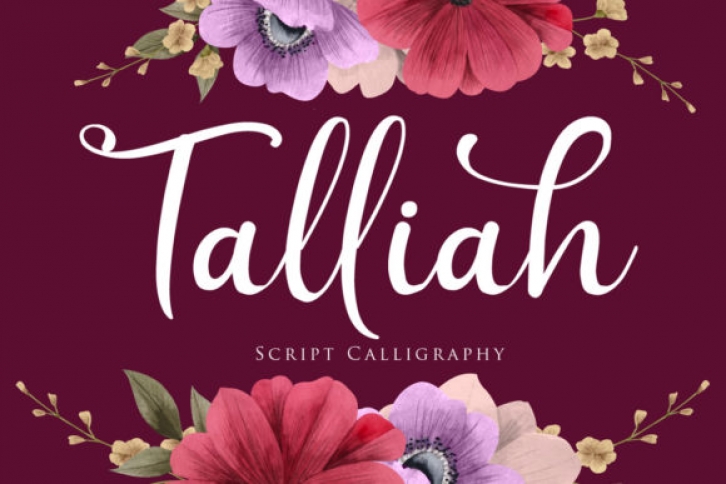
Talliah is a ravishing and delicate script font that exudes elegance and class. This font was particularly crafted for those who need a beautiful and refreshing look to their designs. Talliah is PUA encoded which means you can access all of the glyphs and swashes with ease!